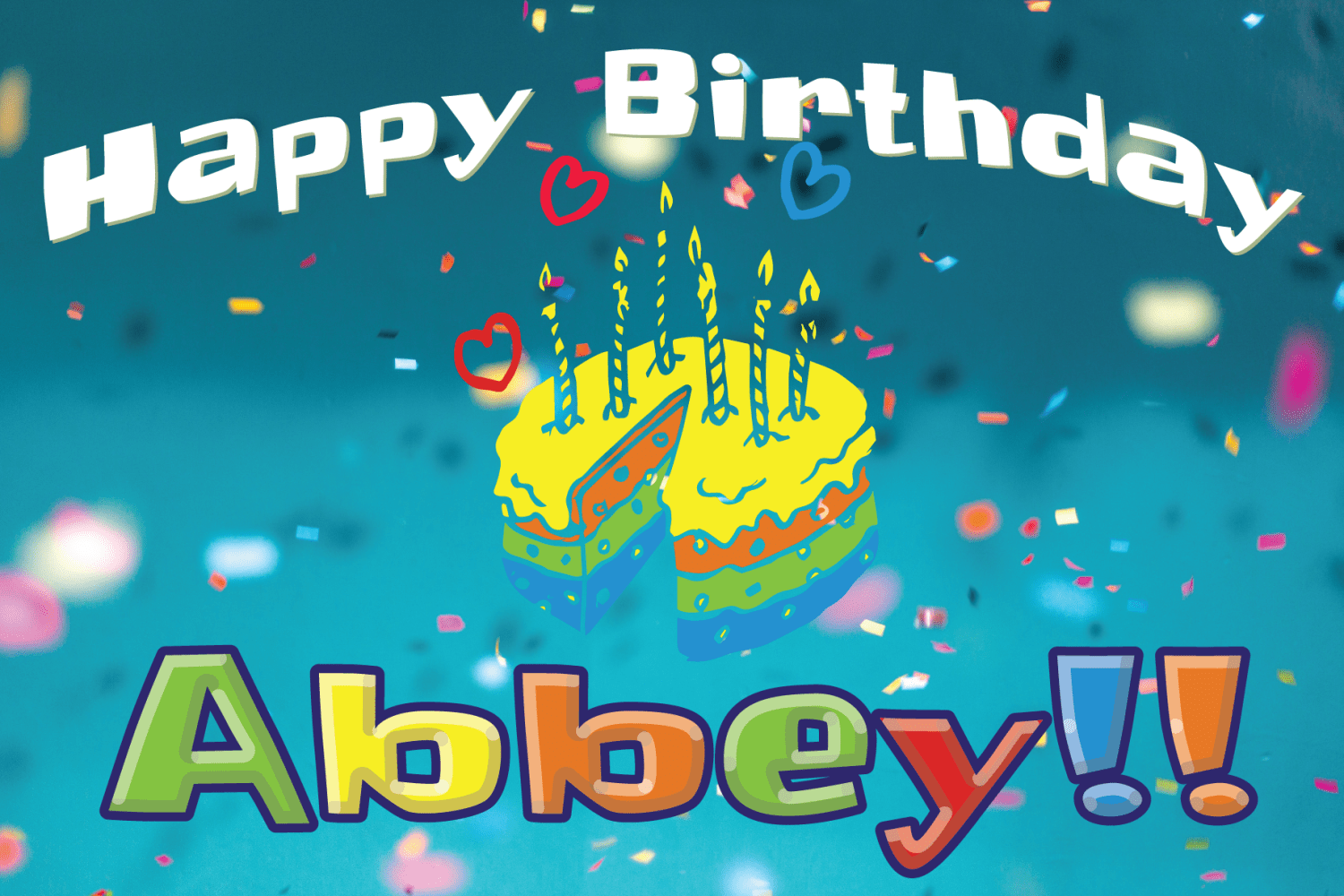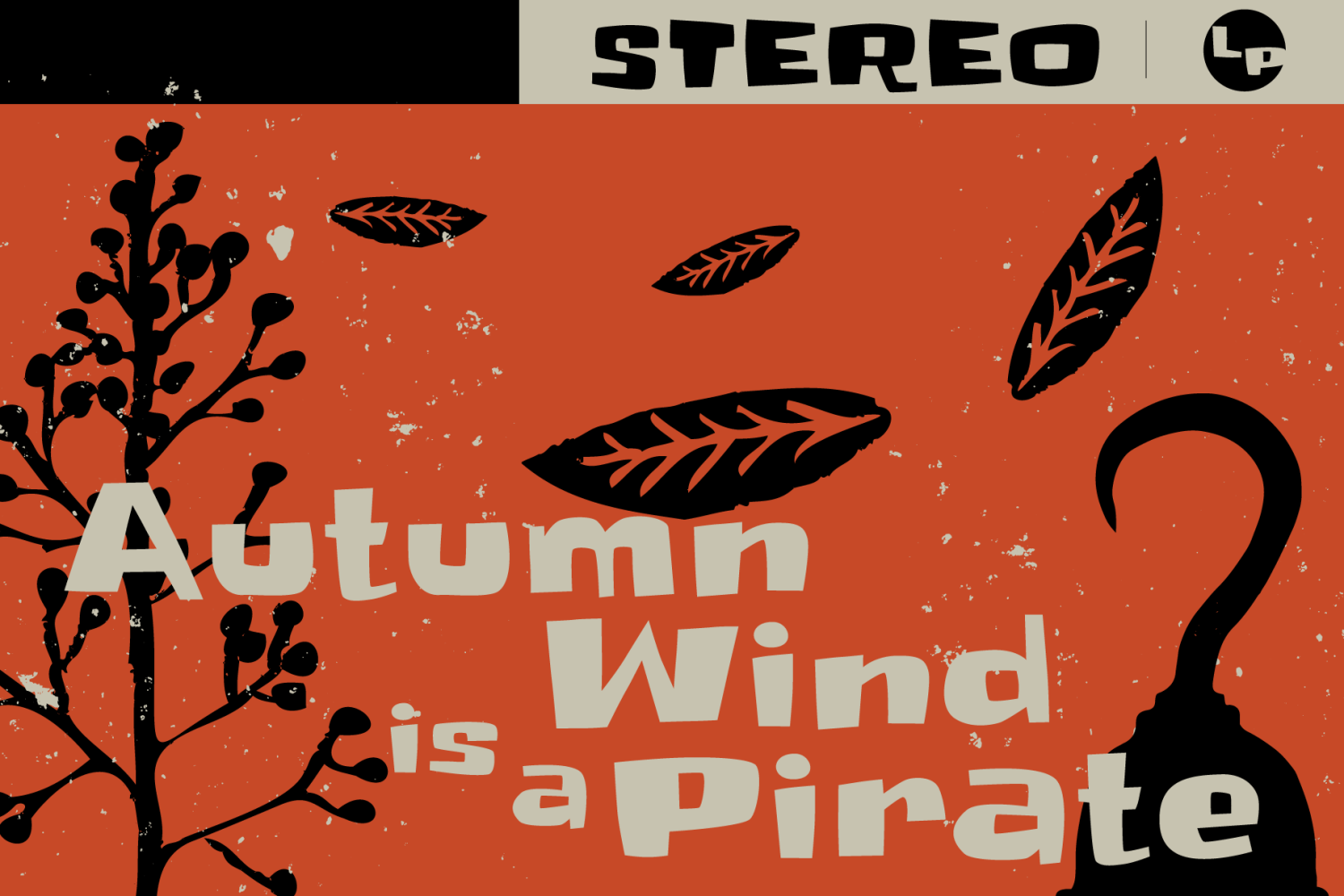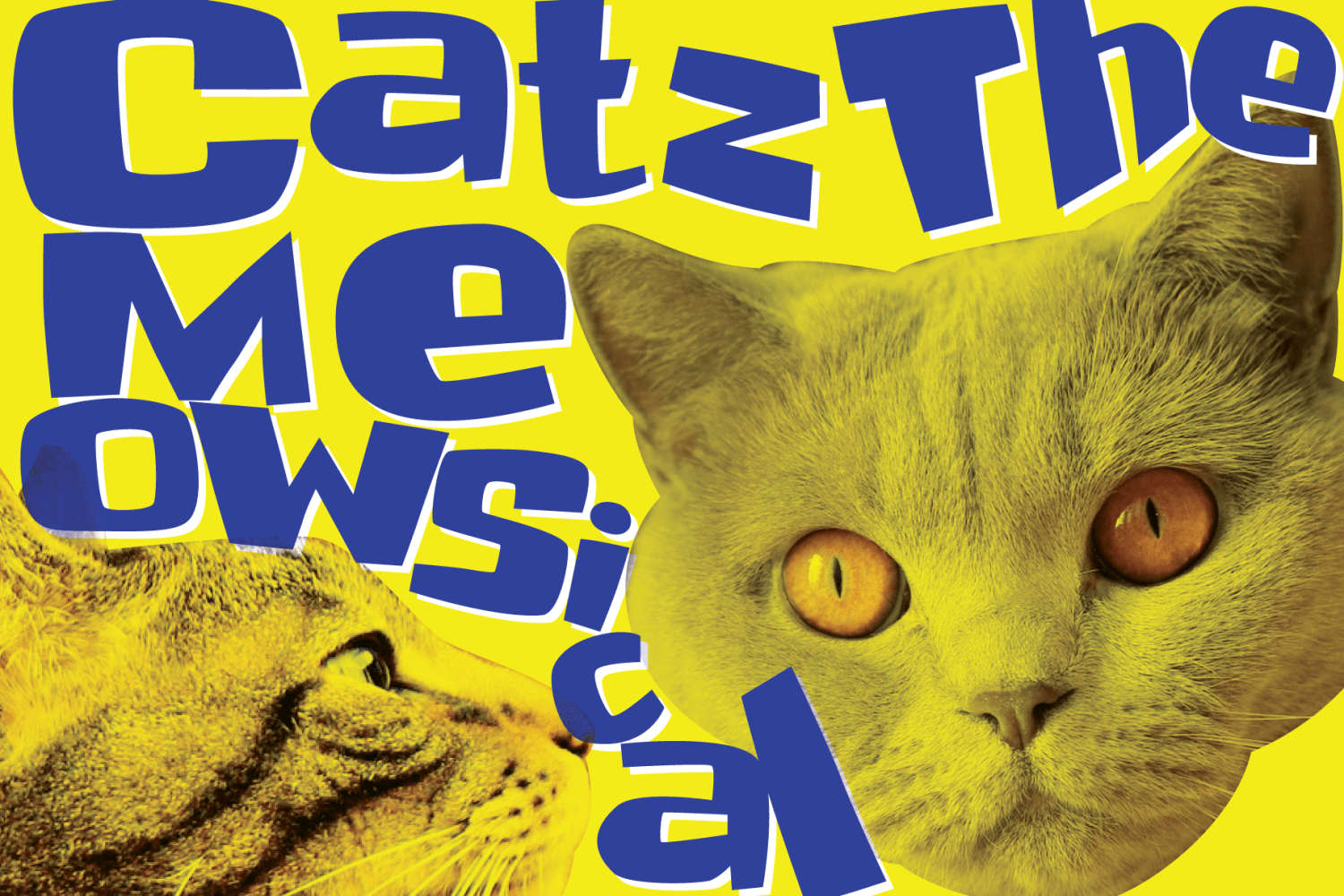
About Bivona
Bivona is a superific, energetic font! Its fun and playful and begs to be included in anything that requires a large amount of zazz. It contains a full Mac OS character set with Latin Support. Most European languages are supported. We\’d love to see…